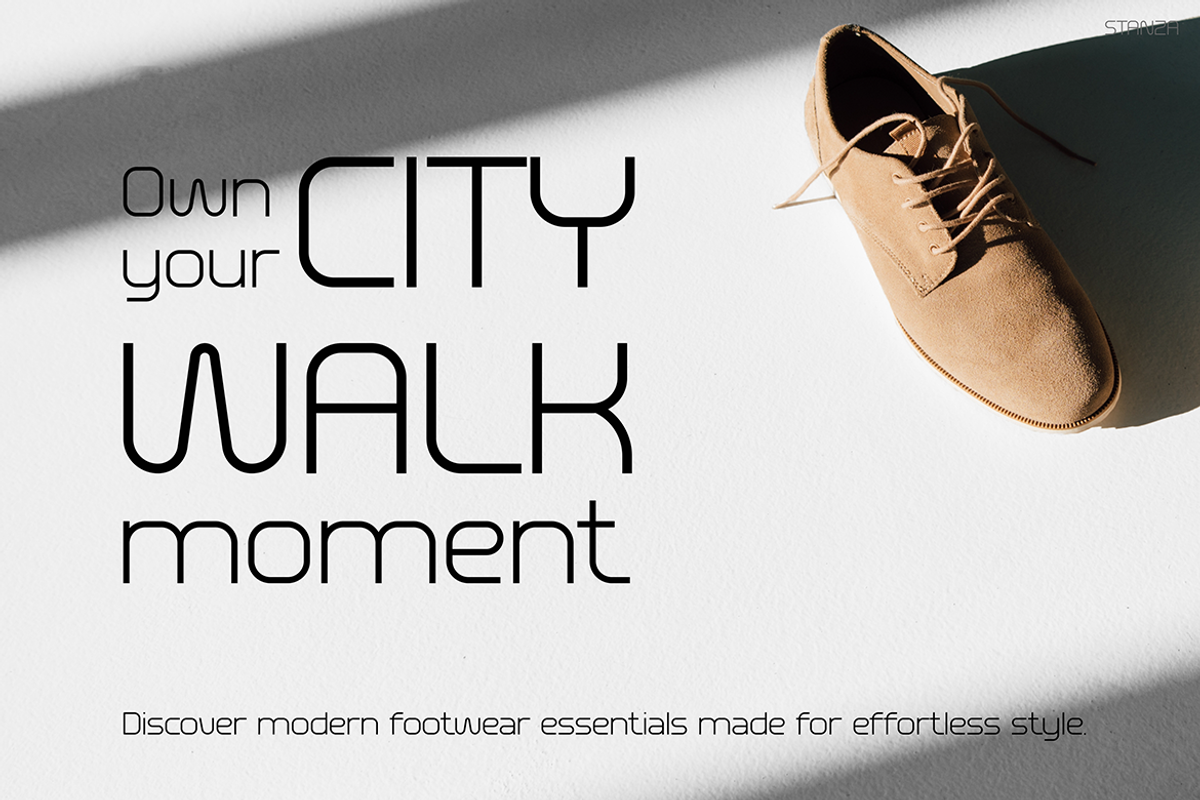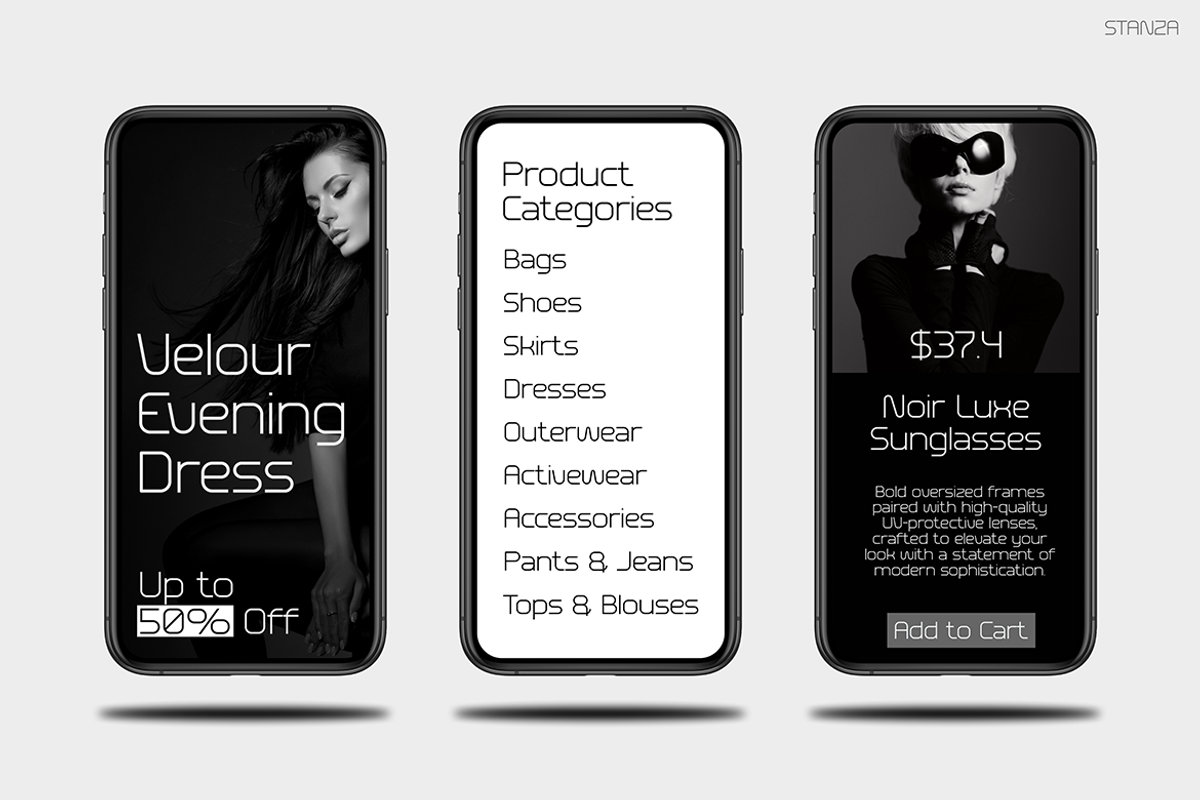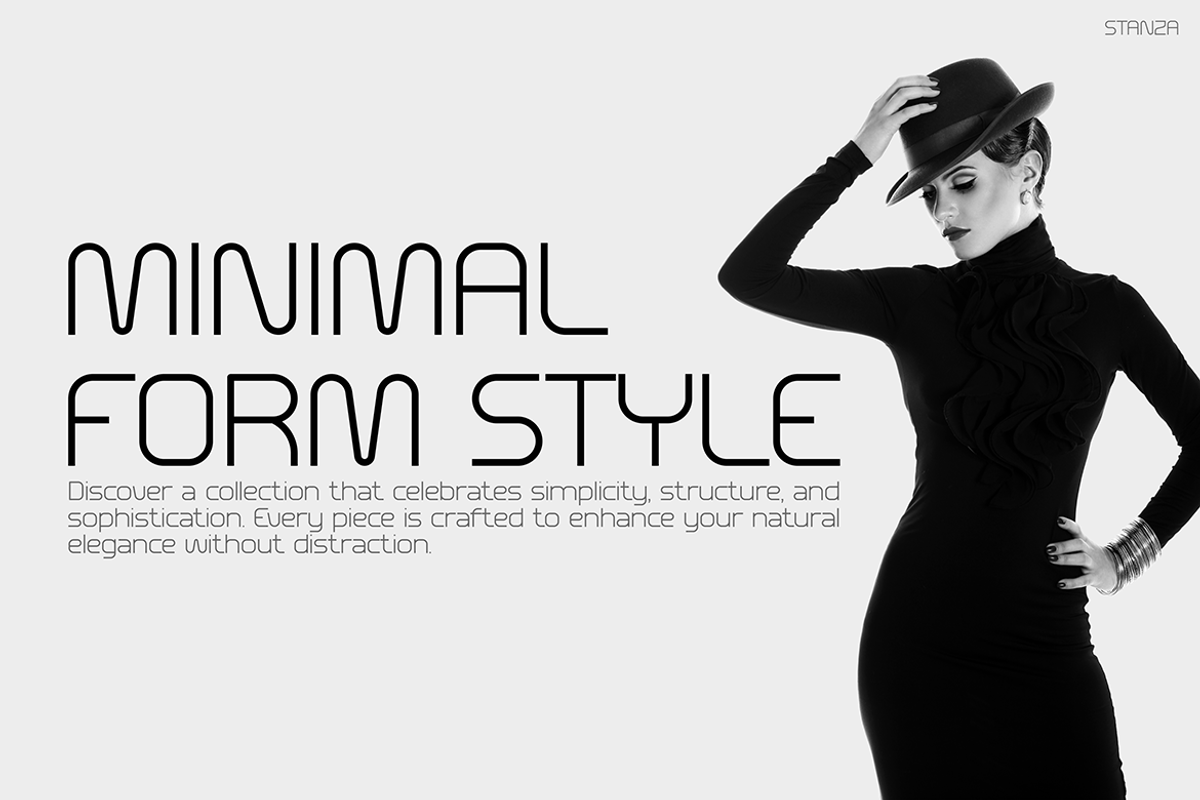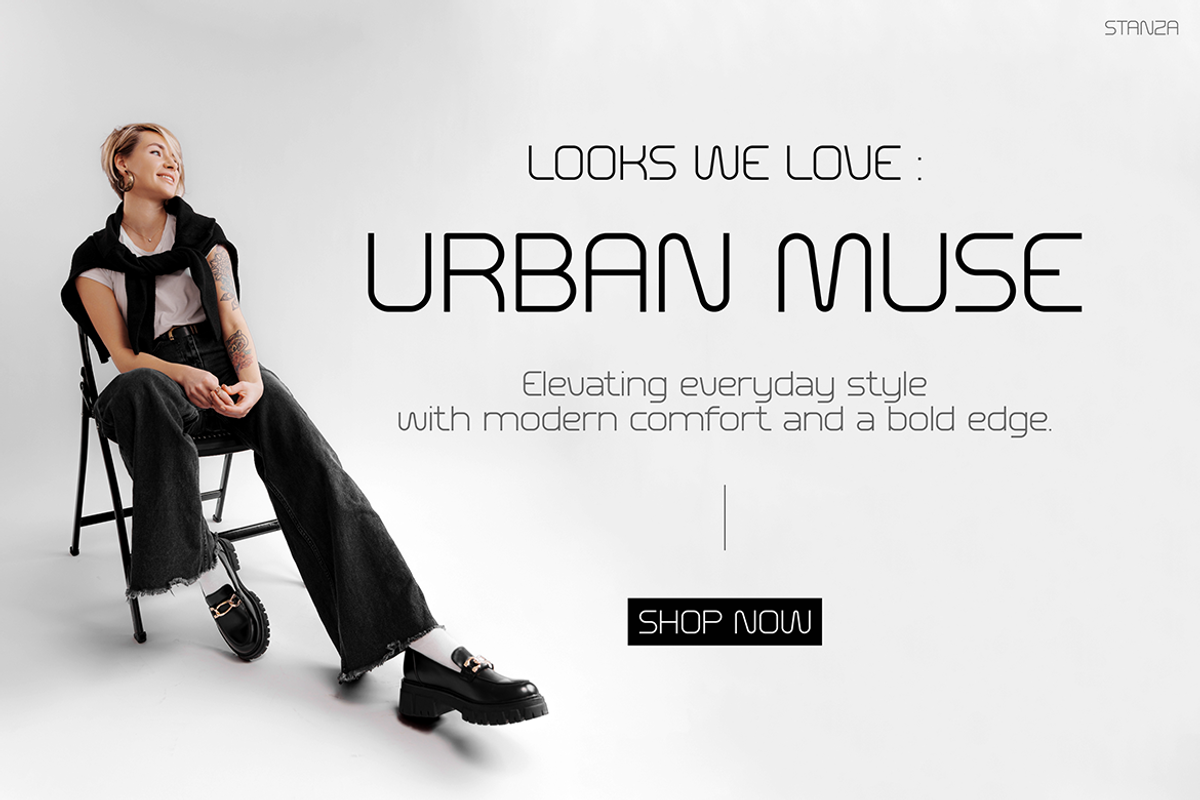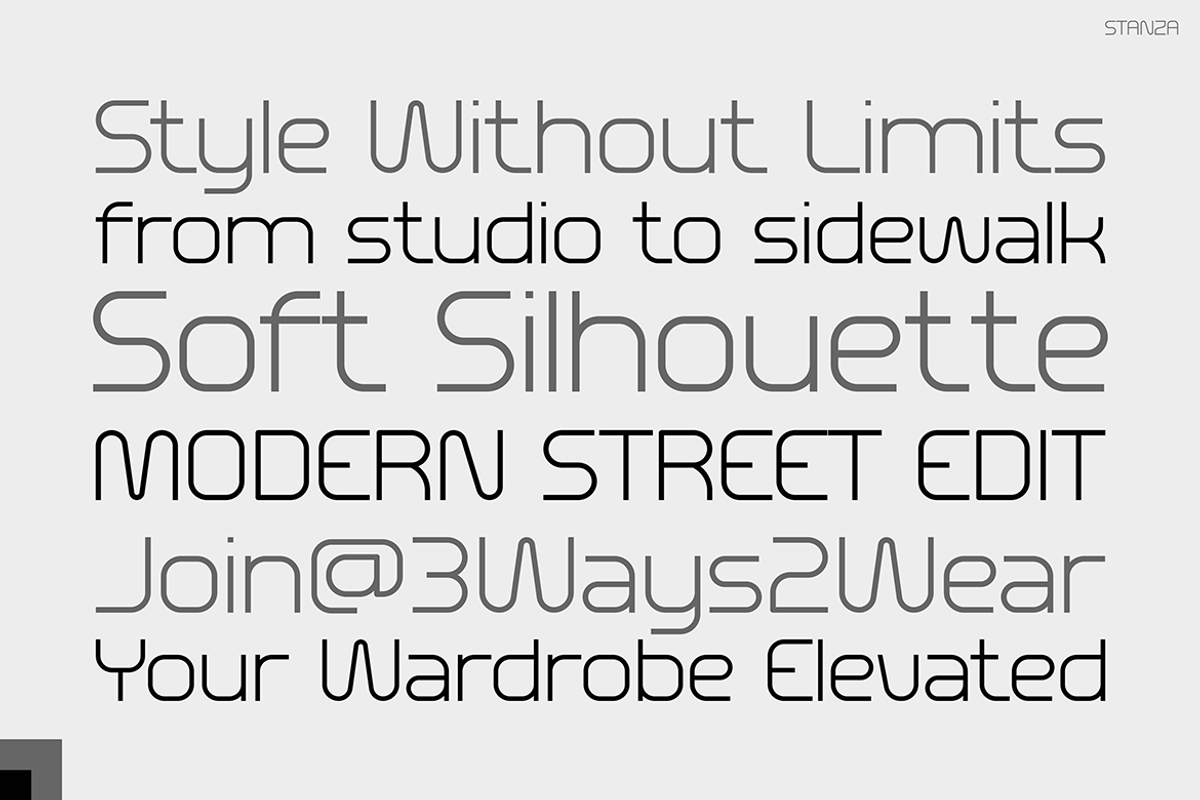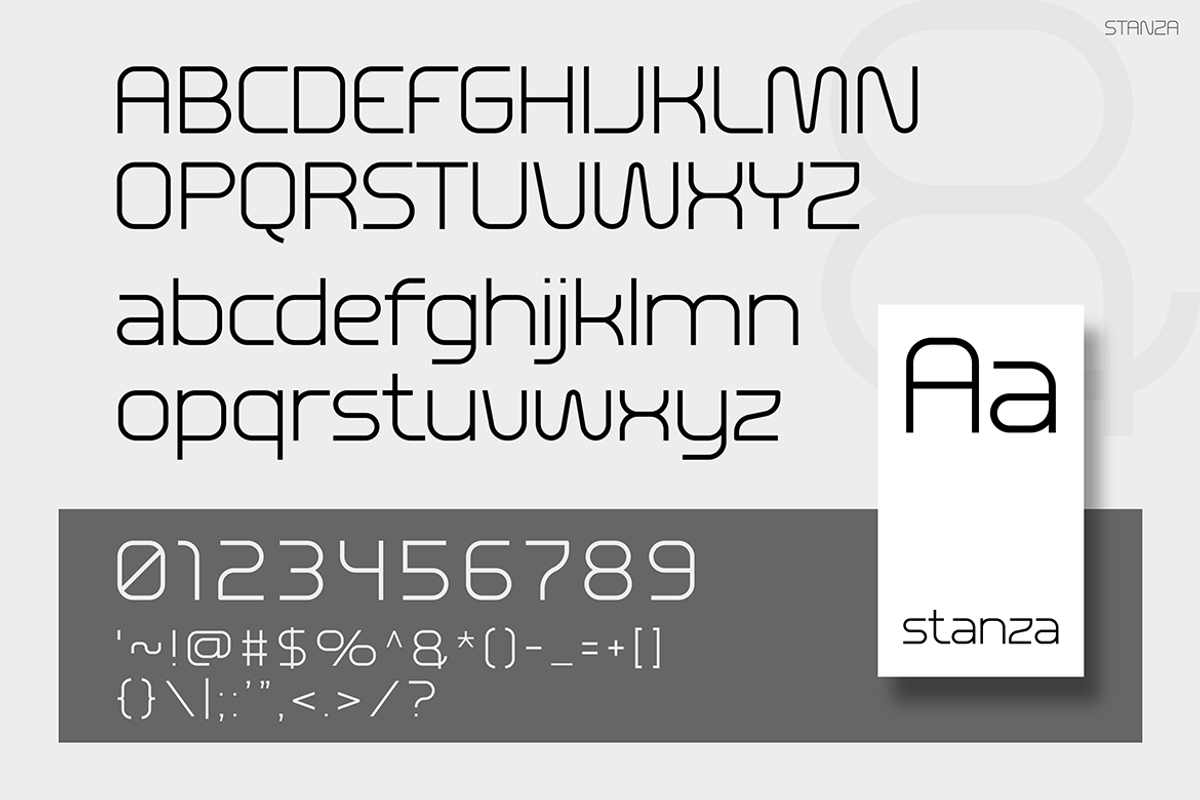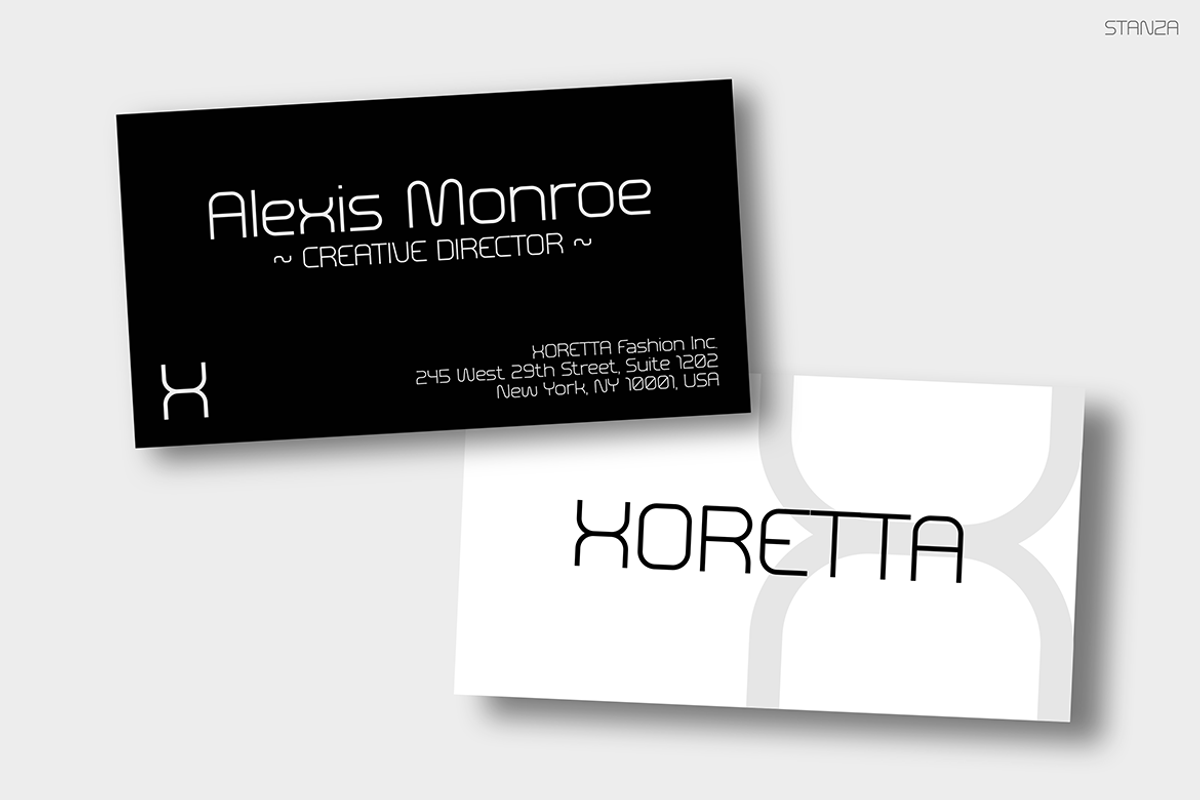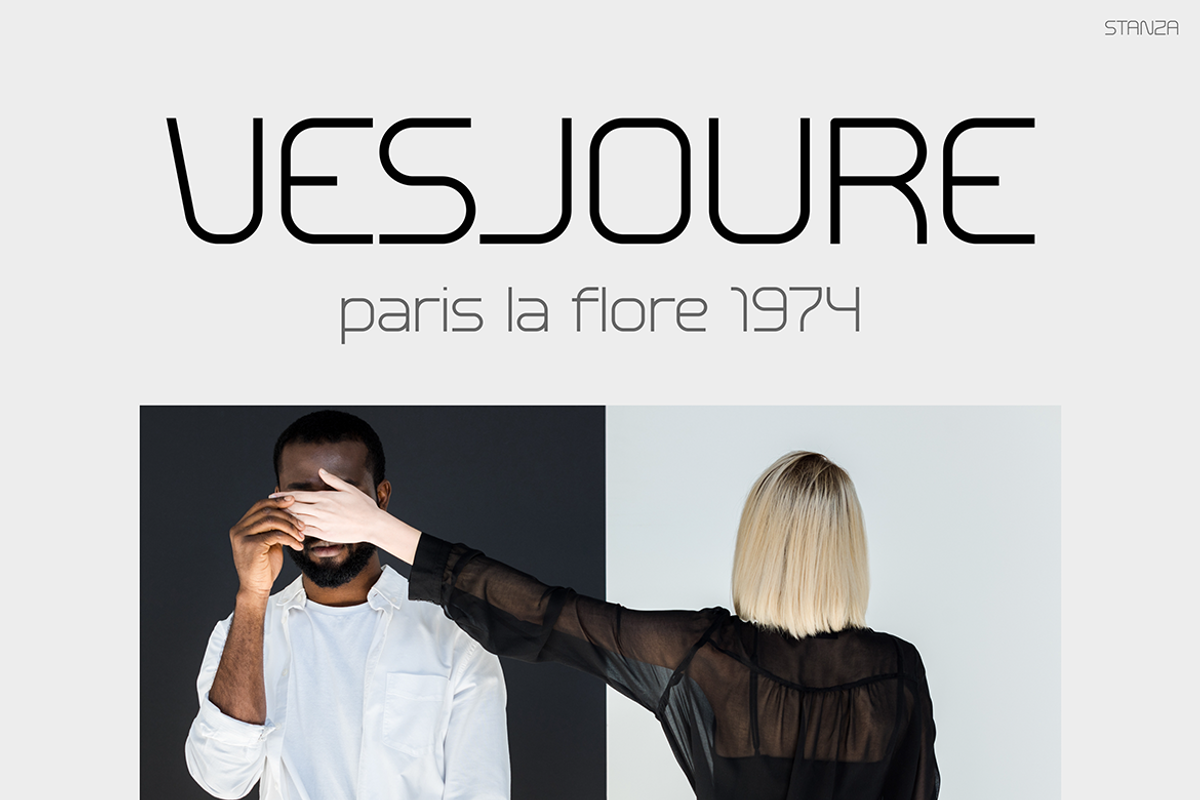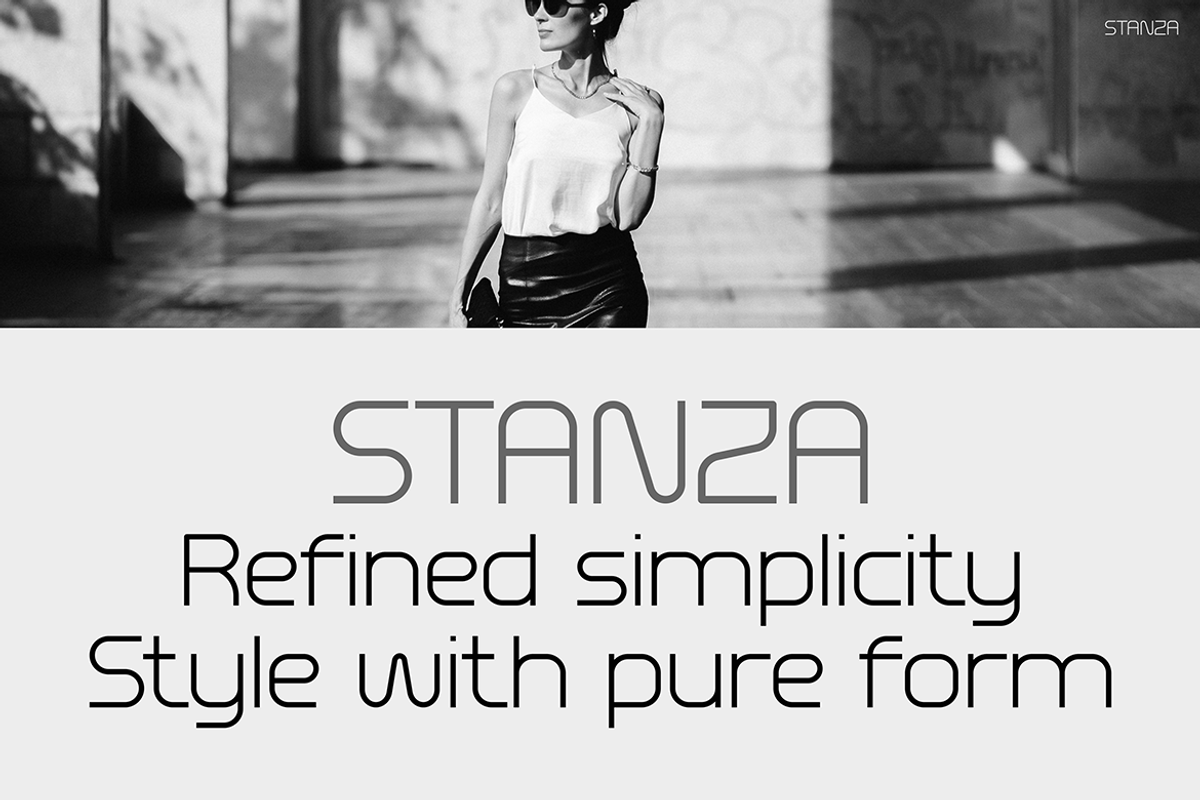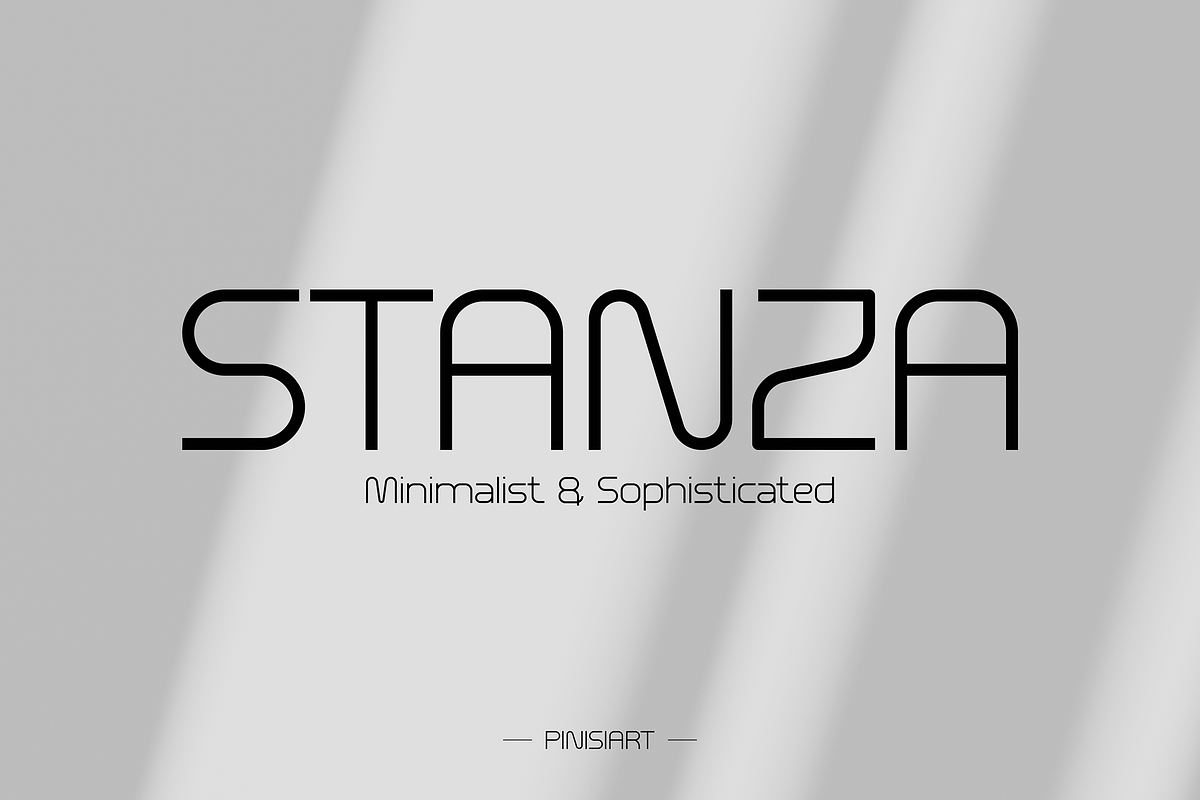
Stanza
Instagram Font Stanza is a modern and minimal typeface that blends elegance with contemporary sophistication. Moreover, its clean geometric curves, balanced proportions, and subtle futuristic touch make it stand out as both versatile and timeless. With thin, precise strokes and rounded edges, it creates a refined visual identity that is both stylish and professional. In addition, its seamless adaptability allows it to shift from minimal elegance to bold, attention-grabbing headlines with ease. Therefore, it becomes an ideal choice for high-end fashion branding, editorial layouts, and sleek digital content. As a result, whether used on a crisp magazine cover, a luxury brand ad, or a stylish Instagram feed, Stanza consistently delivers clarity, style, and personality in every letter.